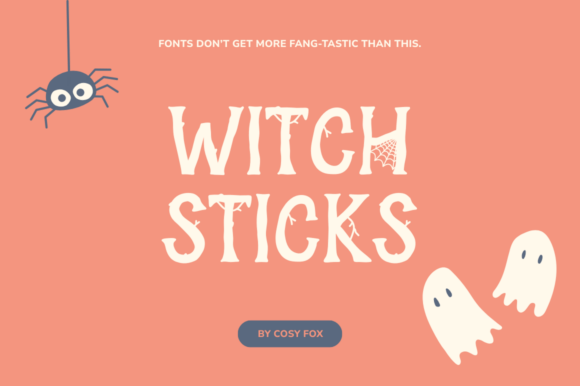
Witch Sticks Font: A Spooky Hand-Drawn Display Font for Your Creative Projects
Are you looking for a font that can add a touch of spookiness and mysticism to your creative projects? Look no further than Witch Sticks, a super spooky hand-drawn display font in uppercase. Designed to evoke a sense of occult wonder and deep-in-the-forest themes, Witch Sticks is a rustic serif font that is perfect for a variety of design projects, from Halloween-themed graphics to mystical and magical branding.
What is Witch Sticks Font?
Witch Sticks is a hand-drawn display font that features a unique and distinctive design. The font is characterized by its rustic serif style, which gives it a charming and earthy feel. The letters are adorned with intricate details that evoke a sense of mysticism and wonder, making it perfect for designs that require a touch of magic and mystery.
The font is available in uppercase only, which adds to its bold and attention-grabbing style. The letters are carefully crafted to create a sense of movement and fluidity, making it perfect for titles, headings, and other display text.
Key Features of Witch Sticks Font
- Hand-drawn design: Witch Sticks is a hand-drawn font, which gives it a unique and distinctive style.
- Uppercase only: The font is available in uppercase only, which adds to its bold and attention-grabbing style.
- Rustic serif style: The font features a rustic serif style, which gives it a charming and earthy feel.
- Intricate details: The letters are adorned with intricate details that evoke a sense of mysticism and wonder.
- Perfect for display text: The font is perfect for titles, headings, and other display text.
Uses of Witch Sticks Font
Witch Sticks is a versatile font that can be used for a variety of design projects. Here are some of the most popular uses of the font:
- Halloween-themed graphics: The font is perfect for Halloween-themed graphics, such as posters, flyers, and social media graphics.
- Mystical and magical branding: The font can be used to create mystical and magical branding, such as logos, business cards, and letterheads.
- Fantasy and horror designs: The font is perfect for fantasy and horror designs, such as book covers, movie posters, and video game graphics.
- Occult and spiritual designs: The font can be used to create occult and spiritual designs, such as ritual manuals, meditation guides, and spiritual journals.
Tips for Using Witch Sticks Font
Witch Sticks is a unique and distinctive font that can add a touch of spookiness and mysticism to your design projects. With its rustic serif style and intricate details, it’s perfect for a variety of design projects, from Halloween-themed graphics to mystical and magical branding. By following the tips outlined in this article, you can use Witch Sticks font to create stunning and effective designs that capture the imagination of your audience.
- What is Witch Sticks font?: Witch Sticks is a hand-drawn display font in uppercase, characterized by its rustic serif style and intricate details.
- What is Witch Sticks font used for?: Witch Sticks font is perfect for a variety of design projects, including Halloween-themed graphics, mystical and magical branding, fantasy and horror designs, and occult and spiritual designs.